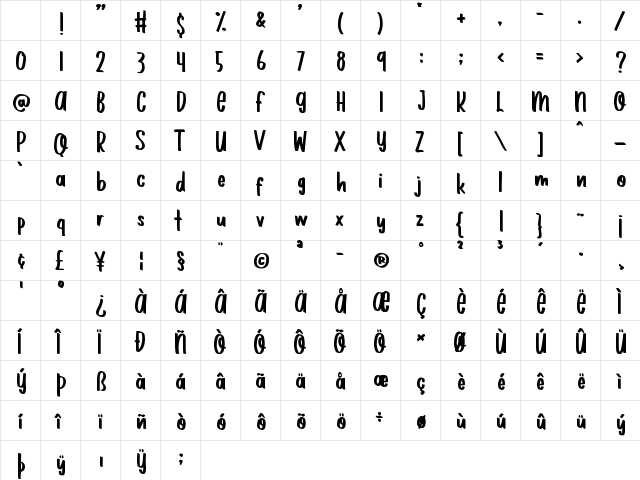
Complete 1000 Wishes Origami Regular glyph index. Displaying only characters natively supported by 1000 Wishes Origami Regular font.
1000 Wishes Origami is a composed and adaptable typeface that performs quietly and consistently across a wide range of design contexts.